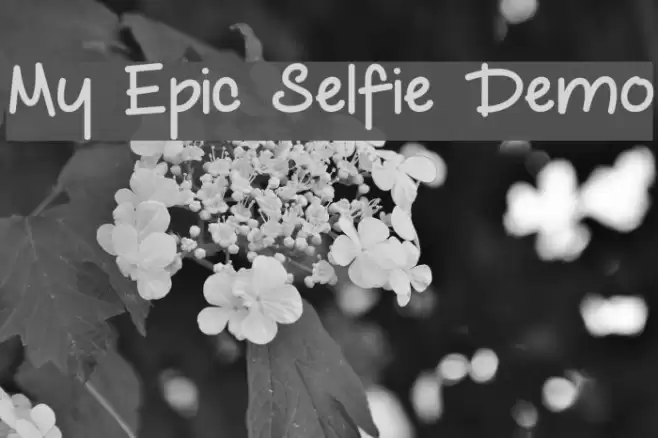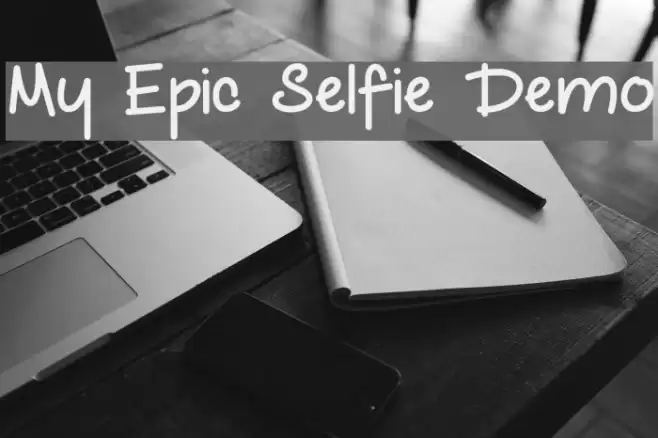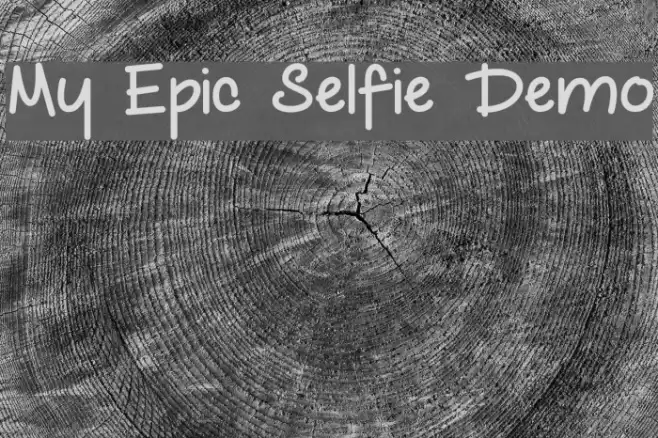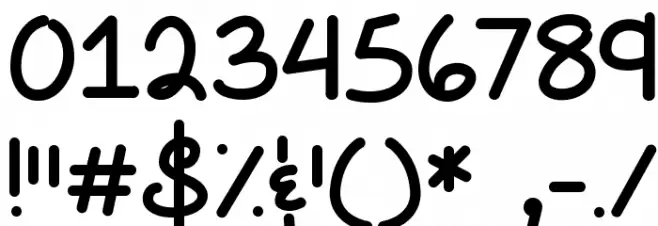
My Epic Selfie Demo Font
My Epic Selfie Demo Description
This playful and casual font features a handwritten style with rounded edges and a friendly appearance. The letters are slightly irregular, giving it a personal touch, reminiscent of a casual note or doodle. The uppercase and lowercase characters maintain a consistent flow, while the numerals and special characters complement the overall style. Its informal and approachable design makes it suitable for projects that aim to convey warmth and friendliness.
A playful, handwritten font with rounded edges and a casual style from Uncategorized fonts.
- Font: My Epic Selfie Demo
- Proposed Projects: Ideal for greeting cards, children's books, informal invitations, and social media graphics.
- Overall Style: Casual
- Use Case: Headlines, Informal text, Social media